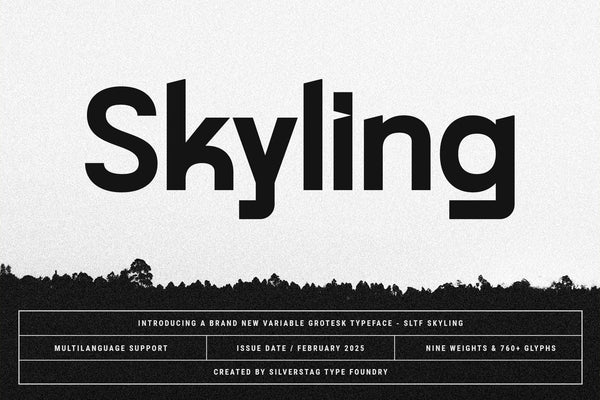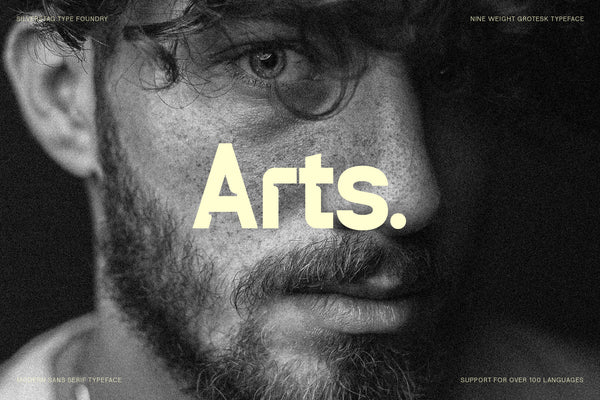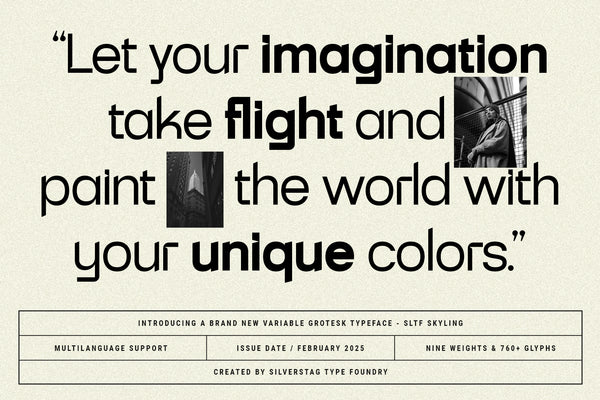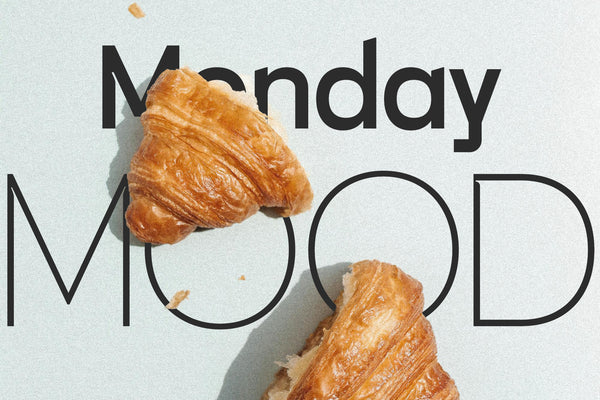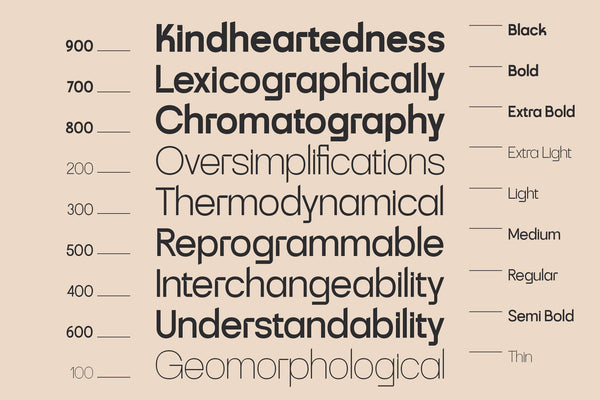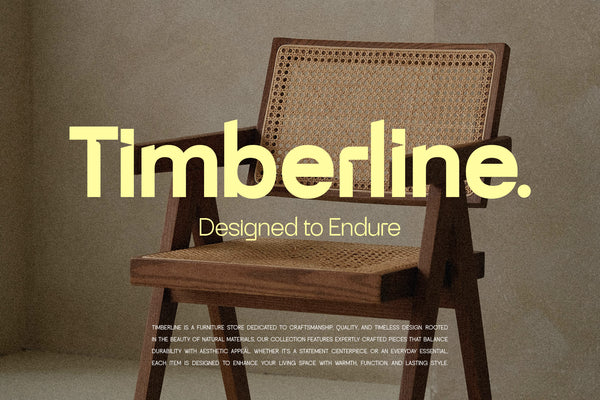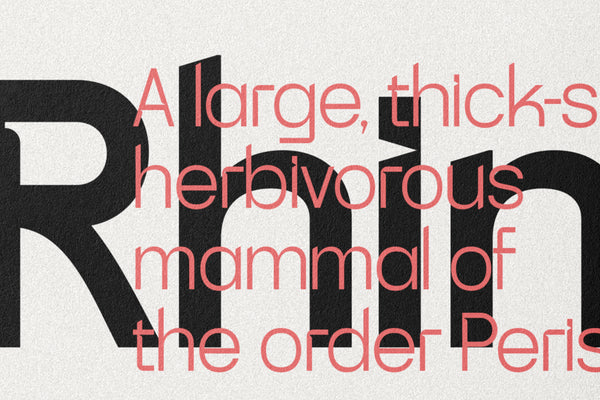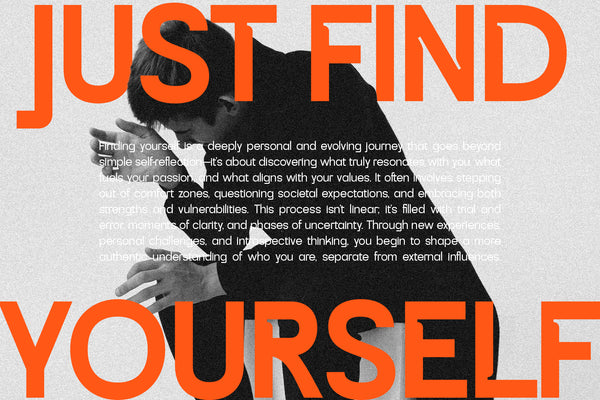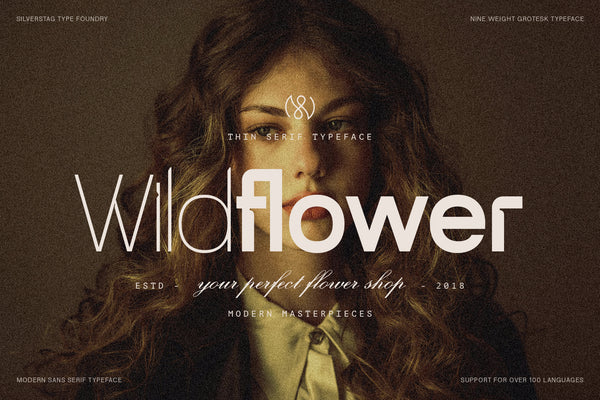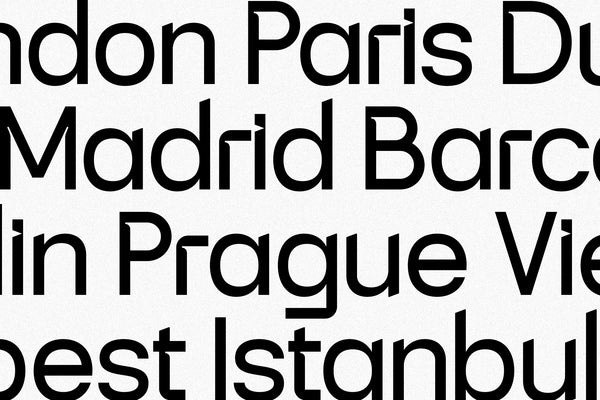
SLTF Skyling is a modern geometric grotesk sans serif typeface designed for clarity, precision, and high-impact versatility. With nine weights from Thin to Black, full variable font support, and coverage for over 100 languages, Skyling is your all-in-one solution for branding, editorial, UI/UX design, and digital experiences.
Inspired by the neutrality of classic grotesks and refined with subtle warmth, Skyling offers clean, structured letterforms that feel both contemporary and human. Its crisp shapes, fine spacing, and versatile design system make it ideal for everything from corporate branding to immersive web interfaces.
Whether you’re building large-scale brand identities or crafting editorial layouts with fine detail, Skyling’s geometric backbone and thoughtful features ensure lasting readability and visual appeal across every platform.